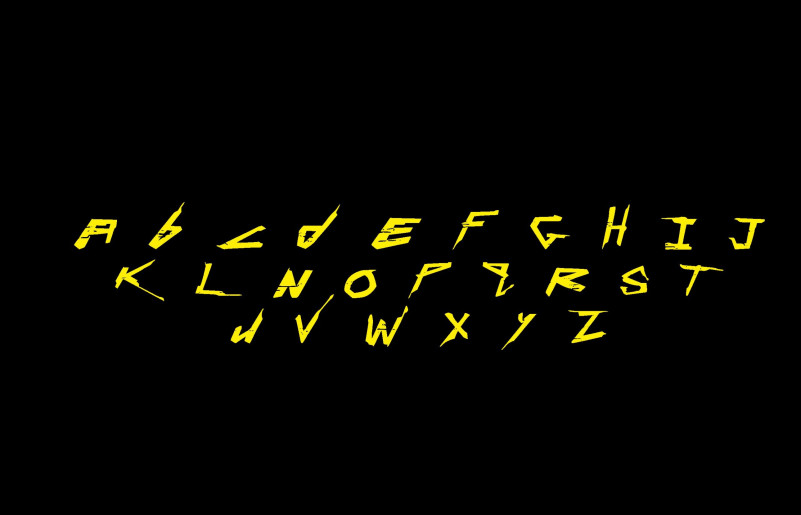
Are you on the hunt for that slick Cyberpunk font used in the logo of Cyberpunk 2077? Looking to add some cybernetic flair to your projects? We got you covered, Chummer. Check out our resources to snag that futuristic typeface for all your texting needs. Edit it up with software like Capcut, Photoshop, Illustrator, Coreldraw, or Cricut. Personal use or non-commercial, these resources will show you how to jack in and customize the Cyberpunk font to your exact specifications.
Cyberpunk Font
| Classification: | Brush Fonts, Display Fonts |